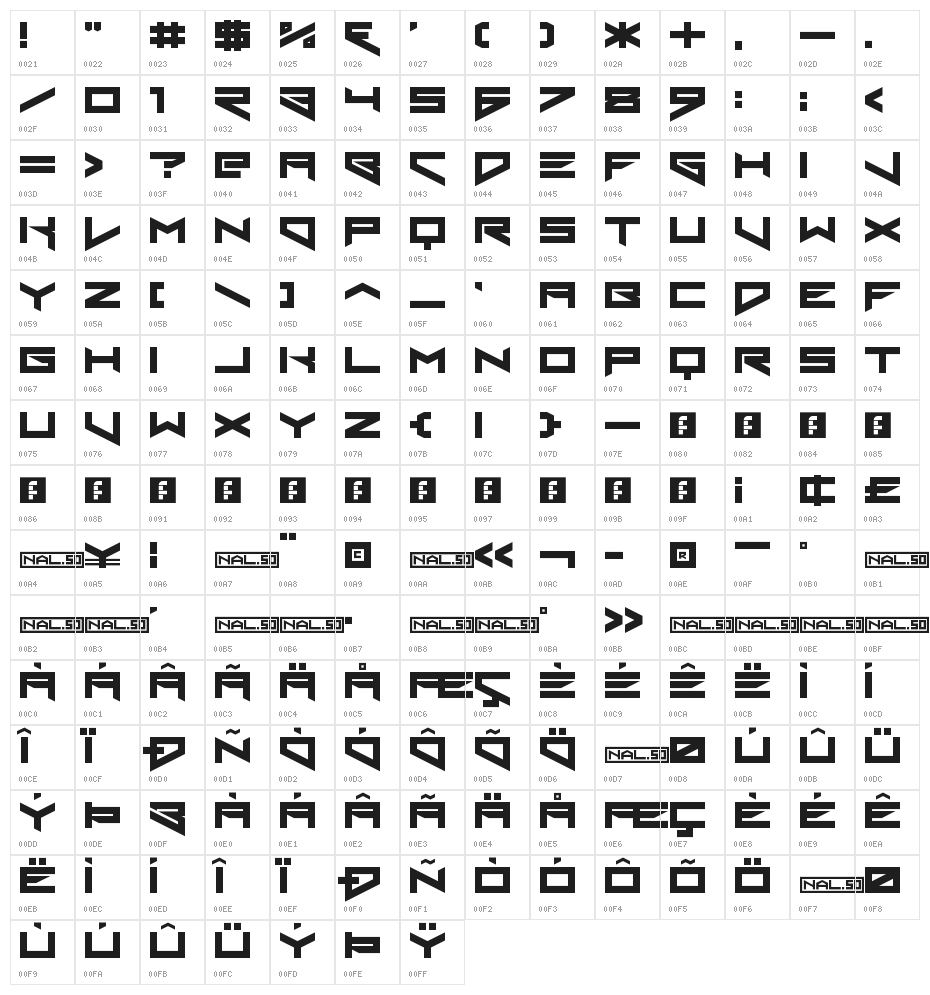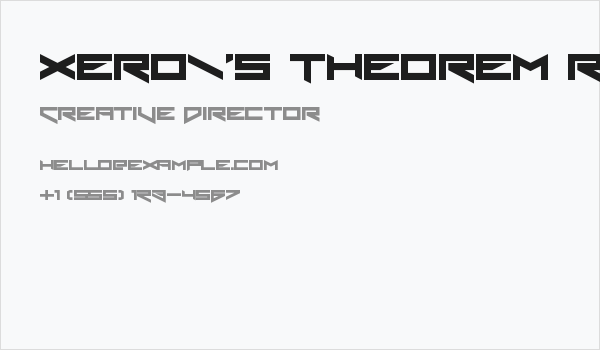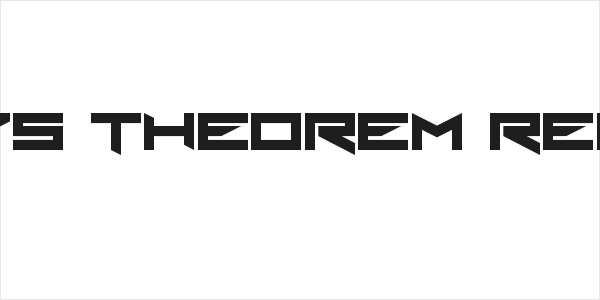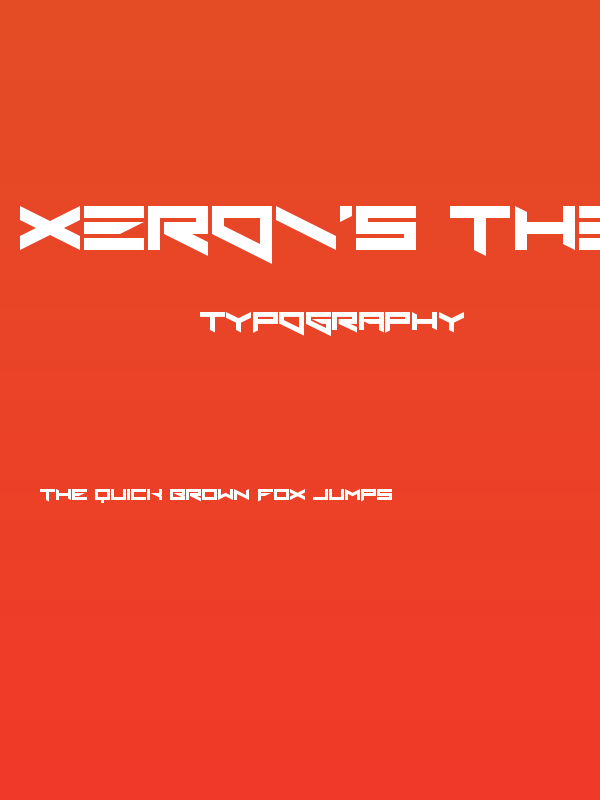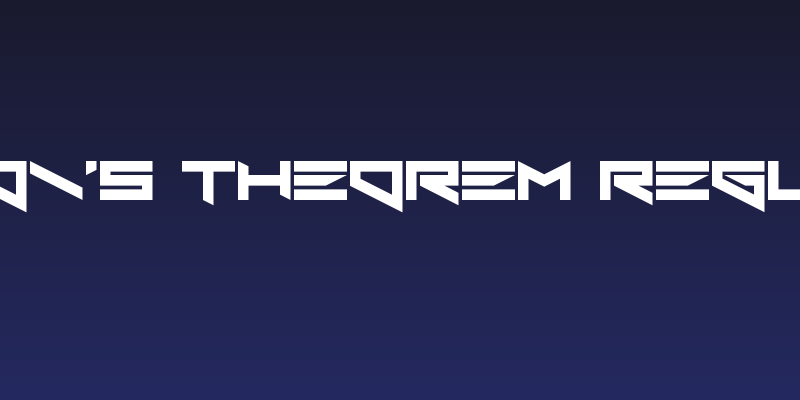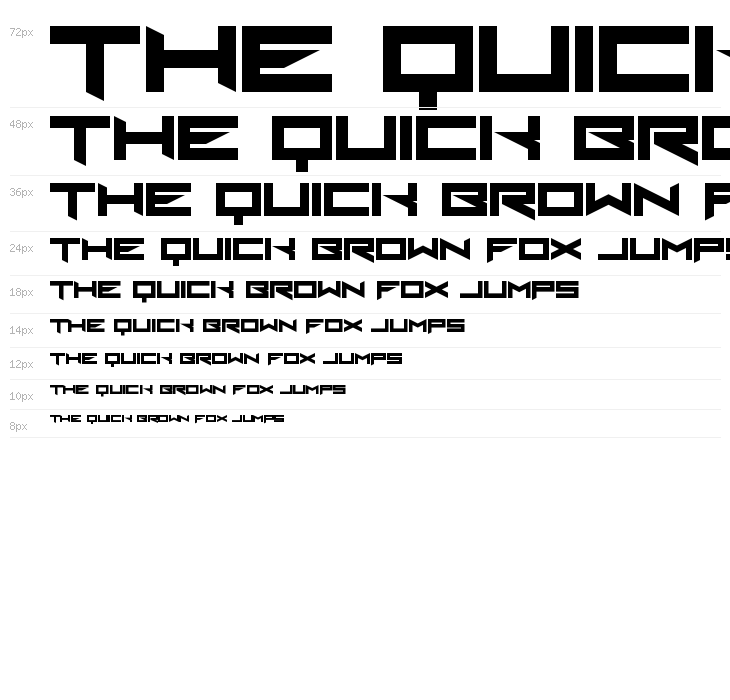
Xero's Theorem Regular Font
Xero's Theorem Regular Description
This font exhibits a futuristic and angular design, characterized by sharp edges and geometric shapes. The uppercase and lowercase letters share a consistent style, with bold lines and a dynamic, forward-leaning posture. The numerals and special characters maintain this aesthetic, creating a cohesive and striking appearance. The font's unique structure makes it stand out, with each character designed to convey a sense of movement and modernity. Its bold and assertive look is ideal for projects that require a strong visual impact.
| Proposed Projects | Ideal for sci-fi themed designs, video game titles, technology branding, and modern posters. |